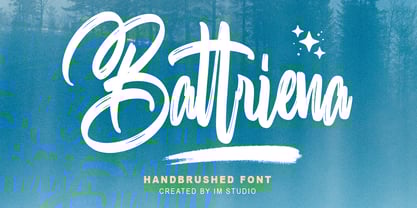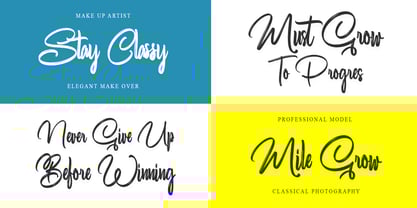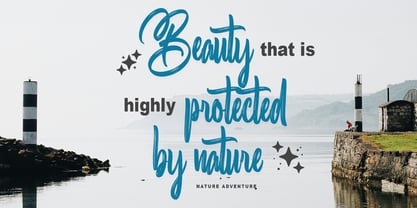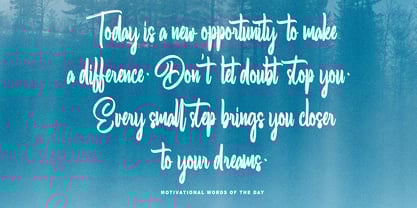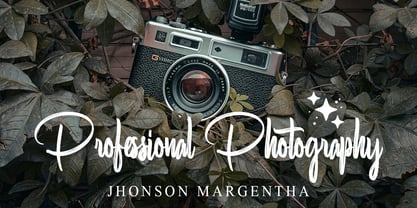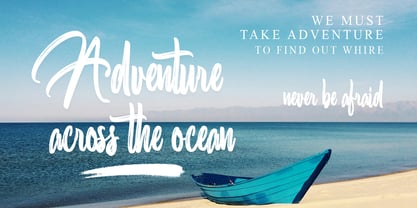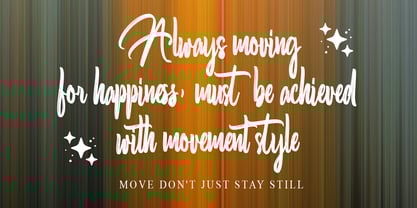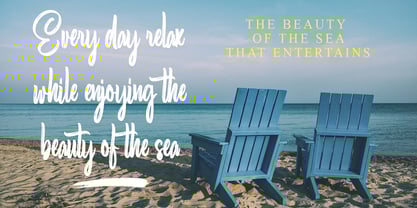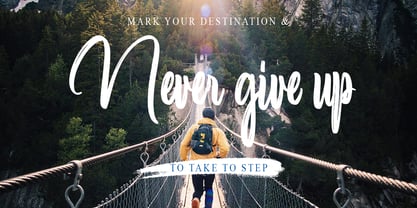
Battriena
by IM Studio
The Battriena Font Family was designed by Ikhsan Maulana and published by IM Studio. Battriena contains 1 styles.
Battriena is a bold, textured brush font with a modern handcrafted vibe. Featuring natural brush strokes, stylish underscores, plus a collection of alternates and ligatures, this font effortlessly adds character and energy to your designs. Perfect for eye-catching titles, logos, apparel, invitations, social media graphics, quotes, book covers, branding, packaging, posters, and more. Whether you're aiming for edgy, casual, or artistic, Battriena delivers the perfect handmade touch to elevate your creative projects.
Designers: Ikhsan Maulana
Publisher: IM Studio
Foundry: IM Studio
Design Owner: IM Studio